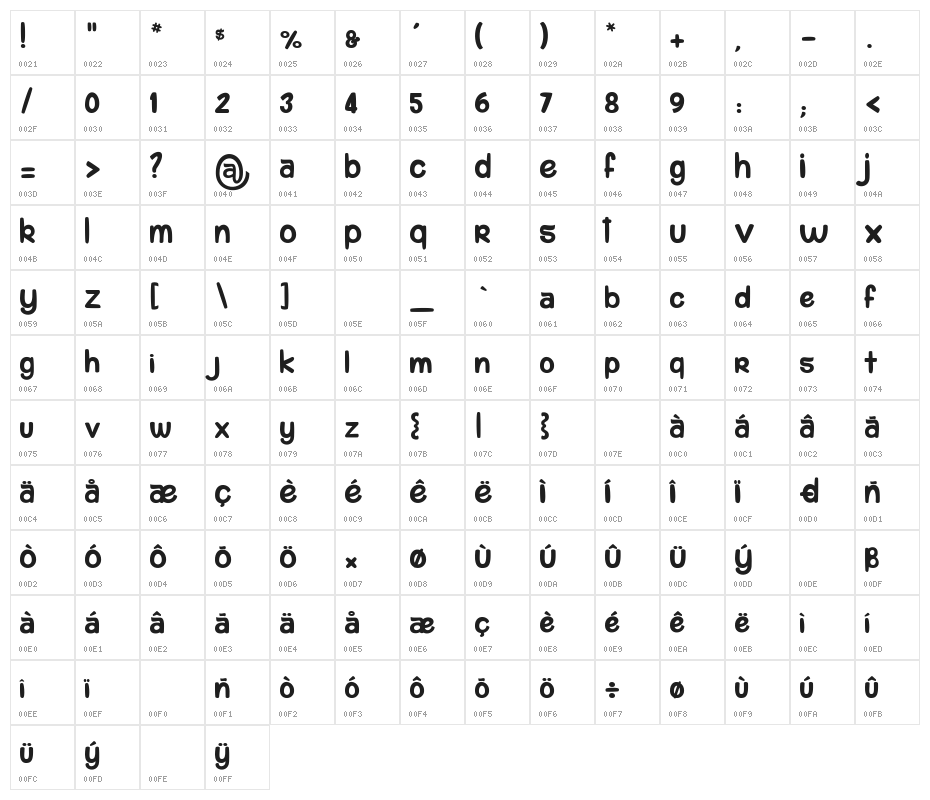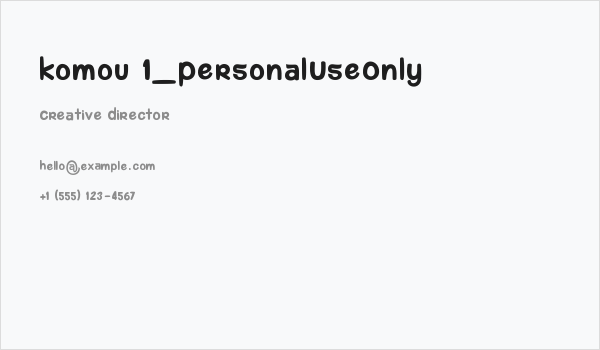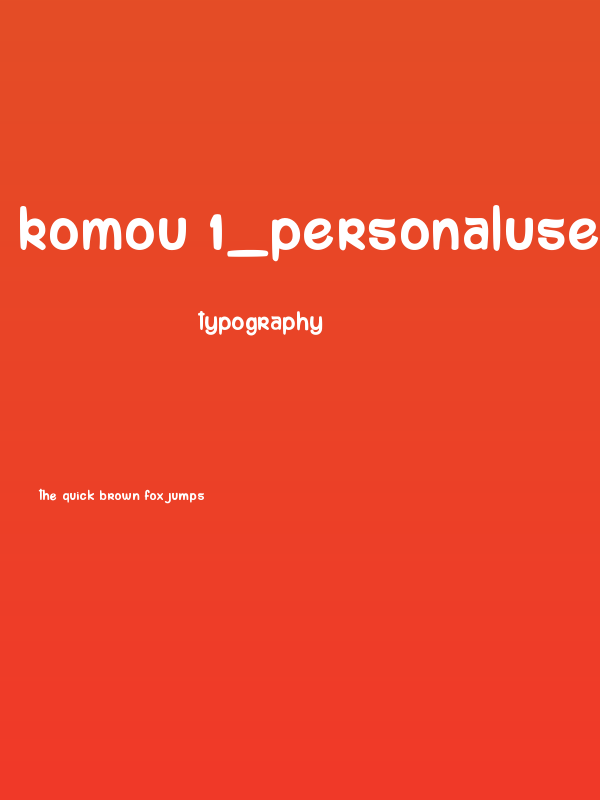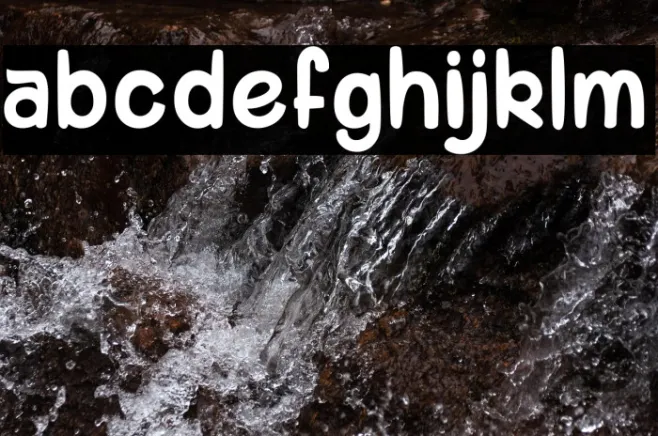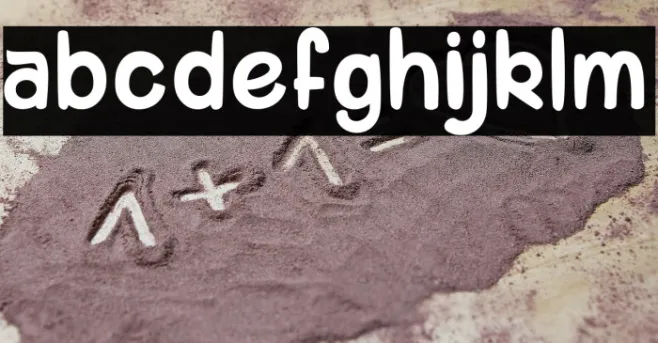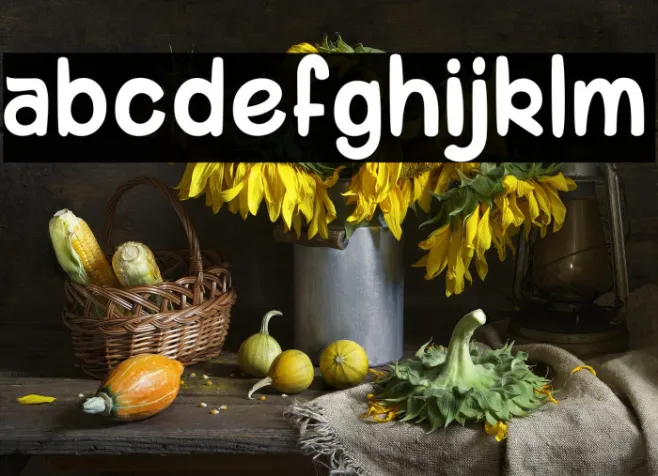
komou 1_PersonalUseOnly Font
komou 1_PersonalUseOnly Description
This playful and rounded font features a bold, friendly appearance with smooth curves and a slightly irregular baseline, giving it a whimsical and informal feel. The characters are well-spaced, ensuring readability while maintaining a casual aesthetic. The font includes both uppercase and lowercase letters, numbers, and a variety of special characters, making it versatile for different design needs. Its thick strokes and uniform weight contribute to a cohesive look, ideal for projects that require a touch of fun and approachability.
| Overall Style | Playful, Informal |
| Proposed Projects | Ideal for children's books, playful branding, greeting cards, and informal invitations. |